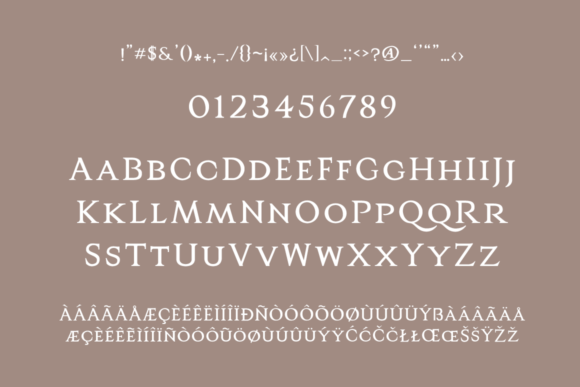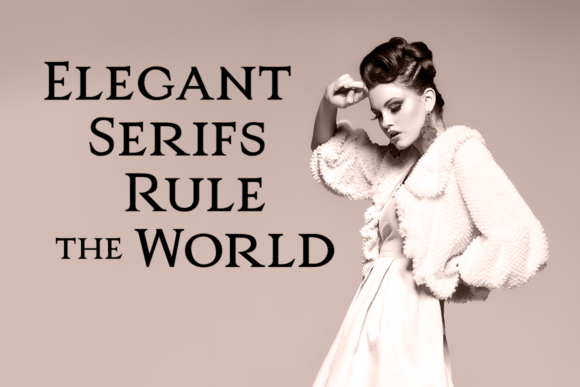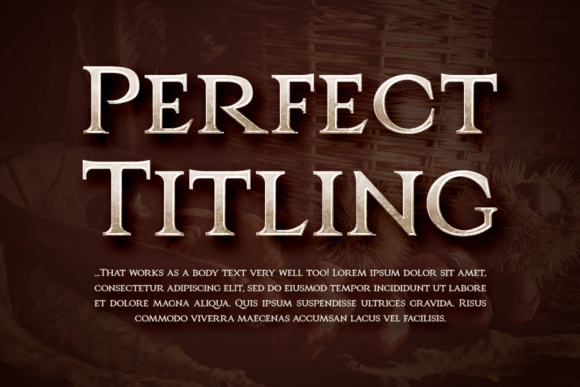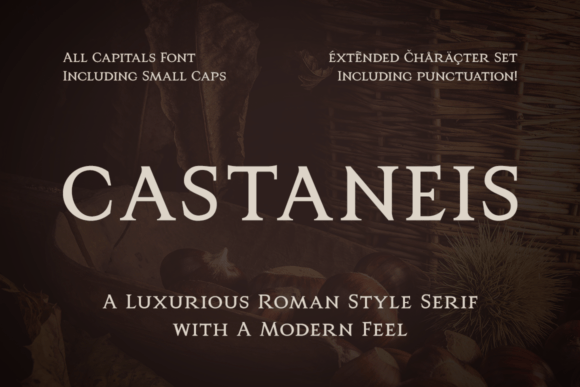
Introducing Castaneis: The Elegant Roman-Inspired Serif Font
In the world of typography, fonts play a crucial role in conveying messages, expressing emotions, and creating visual identities. For designers and crafters, finding the perfect font can be a daunting task, especially when looking for something that exudes luxury, sophistication, and modernity. This is where Castaneis comes in – a Roman-inspired serif font that is making waves in the design community with its unique blend of classic and contemporary flair.
What is Castaneis?
Castaneis is a serif font that draws inspiration from ancient Roman typography, but with a modern twist. It features all capital letters, giving it a distinctive and authoritative look. The font’s design is characterized by its elegant lines, refined curves, and subtle nuances that evoke a sense of luxury and refinement.
Key Features of Castaneis
- Roman-Inspired Design: Castaneis takes its cues from traditional Roman typography, with a focus on serif details and classic proportions.
- All Capital Letters: The font features all capital letters, giving it a strong and commanding presence.
- Modern Twist: Despite its classic roots, Castaneis has a distinctly modern feel, making it perfect for contemporary design projects.
- Luxurious Feel: The font’s elegant lines and refined curves give it a luxurious feel that’s perfect for high-end branding, packaging, and editorial design.
- Versatile: Castaneis can be used both as a display font and a body text font, making it a versatile addition to any designer’s toolkit.
Uses for Castaneis
Castaneis is a versatile font that can be used in a variety of design applications, including:
- Branding and Logo Design: The font’s luxurious feel and authoritative presence make it perfect for high-end branding and logo design.
- Packaging Design: Castaneis is ideal for packaging design, particularly for luxury goods and premium products.
- Editorial Design: The font’s elegant lines and refined curves make it suitable for editorial design, including magazines, newspapers, and books.
- Advertising and Marketing: Castaneis can be used in advertising and marketing materials, such as billboards, posters, and brochures.
Why Choose Castaneis?
With so many fonts available, why choose Castaneis? Here are a few reasons:
- Unique Blend of Classic and Modern: Castaneis offers a unique blend of classic and modern design elements, making it stand out from other fonts.
- High-Quality Design: The font is designed with high-quality craftsmanship, ensuring that it looks great in any design application.
- Versatility: Castaneis can be used in a variety of design applications, making it a versatile addition to any designer’s toolkit.
In conclusion, Castaneis is a Roman-inspired serif font that offers a unique blend of classic and modern design elements. Its luxurious feel, elegant lines, and refined curves make it perfect for high-end branding, packaging, editorial design, and advertising. With its versatility and high-quality design, Castaneis is an excellent choice for designers and crafters looking to add a touch of sophistication and elegance to their design projects.